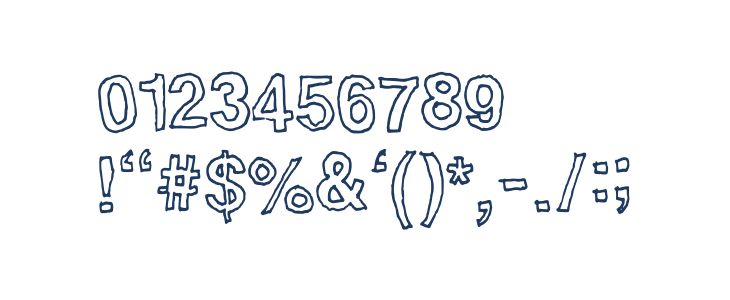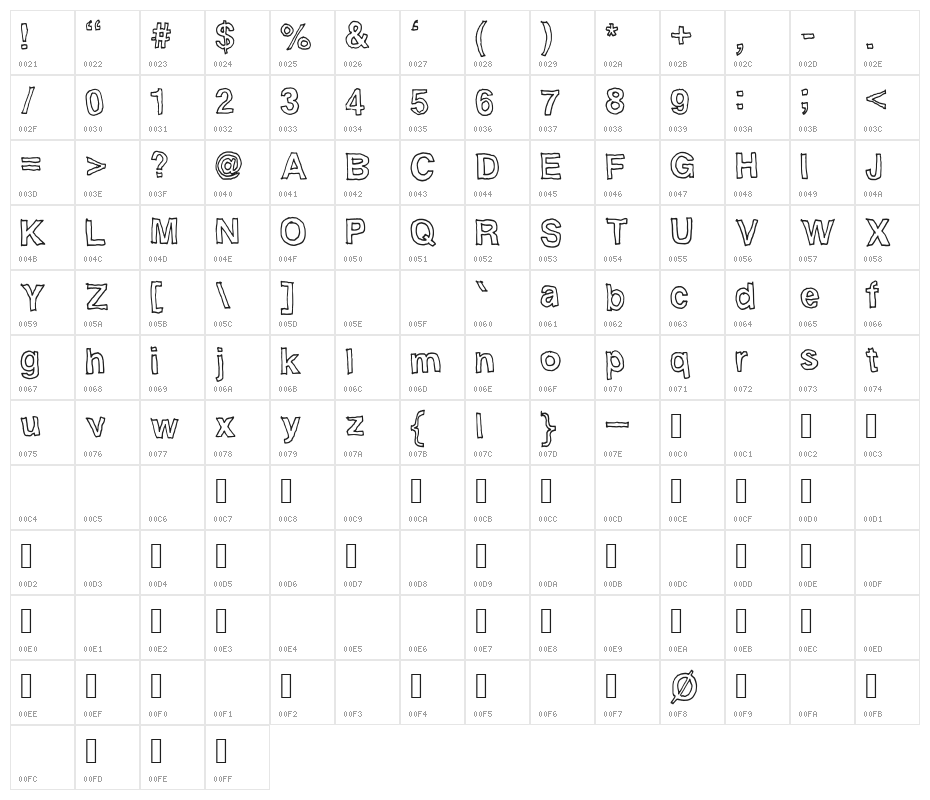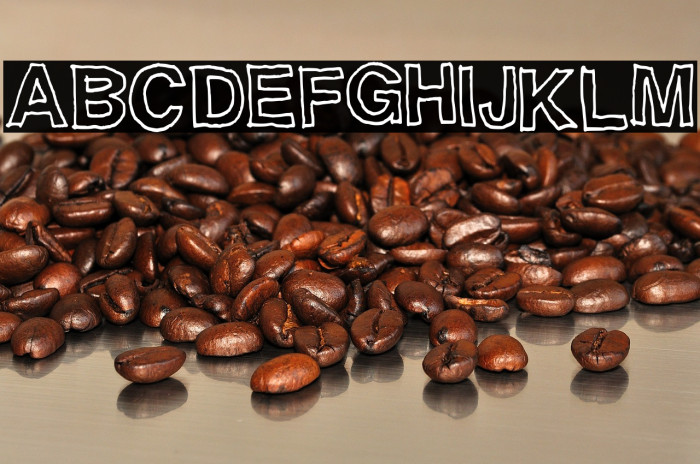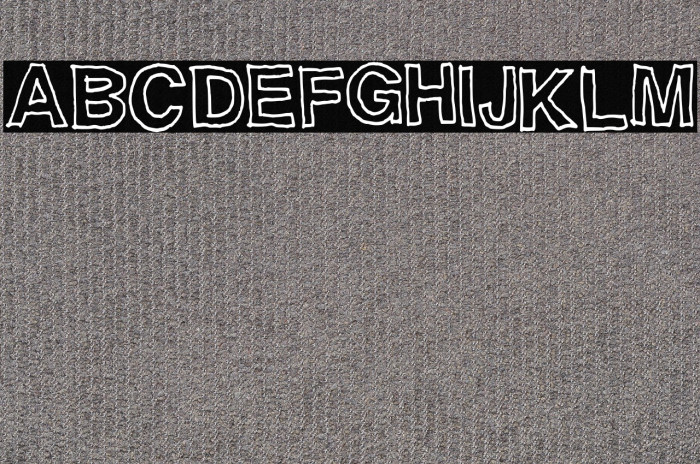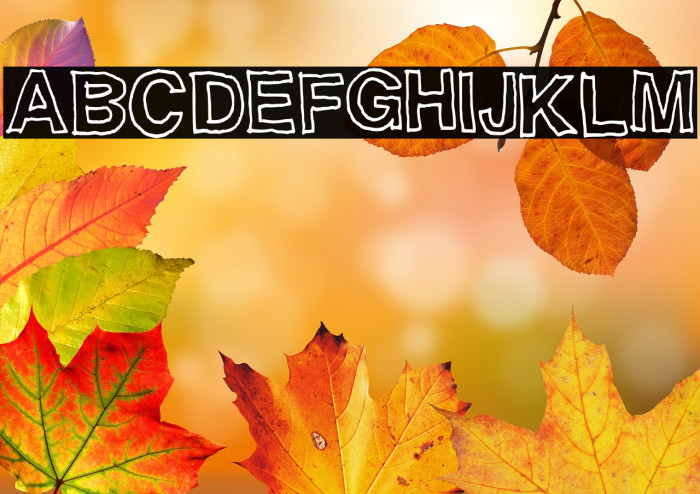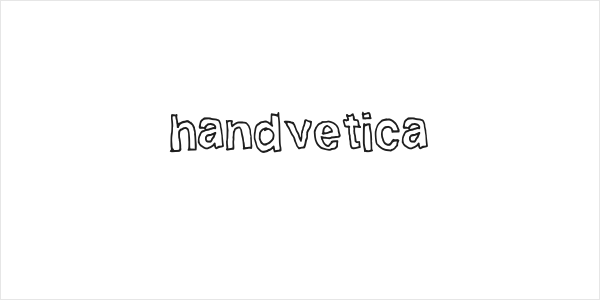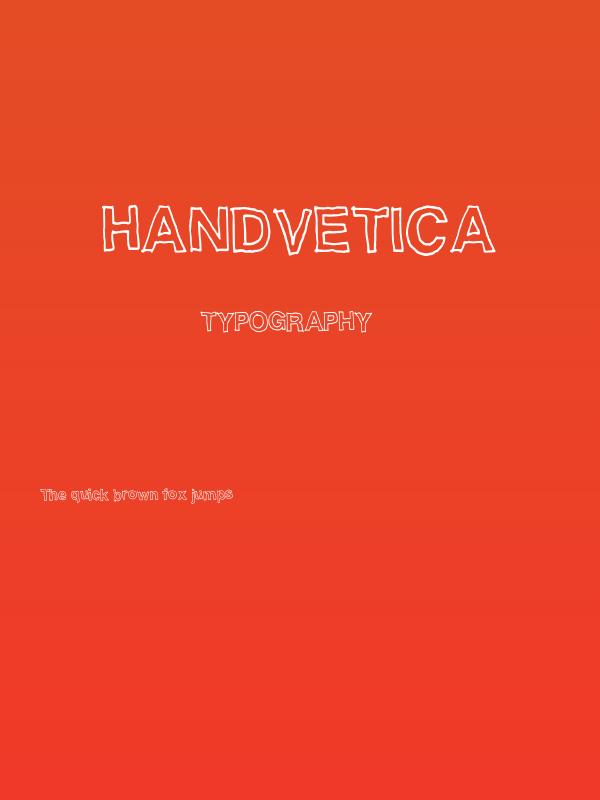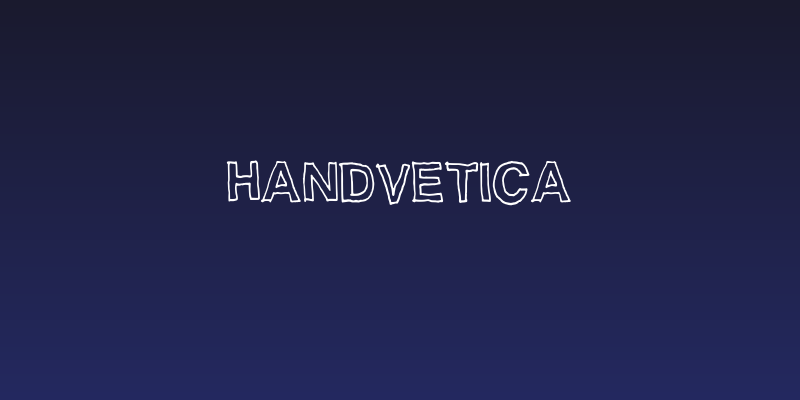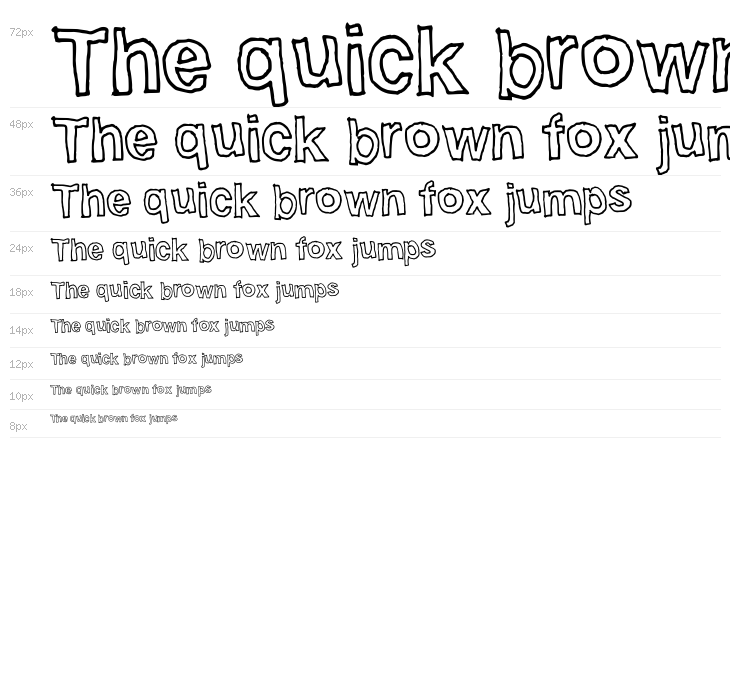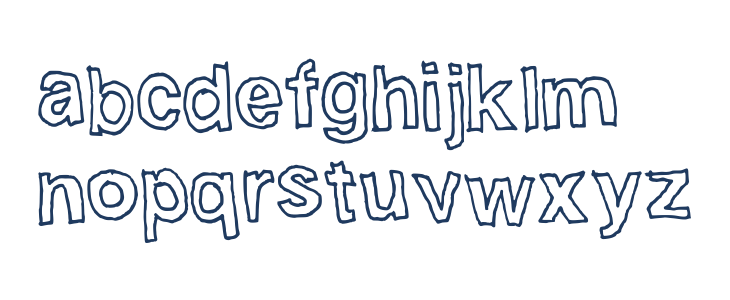
handvetica Font
handvetica Description
This font features a playful, hand-drawn style with a casual and informal appearance. The letters are outlined, giving them a bold and distinctive look, while maintaining a sense of whimsy. The strokes are uneven, adding to the hand-crafted feel, and the characters have a slightly irregular shape, enhancing the organic aesthetic. This font is versatile, suitable for projects that require a personal touch or a creative flair. The uppercase and lowercase letters are consistent in style, with numbers and special characters that match the overall theme.
| Proposed Projects | Ideal for children's books, creative posters, greeting cards, and informal branding. |